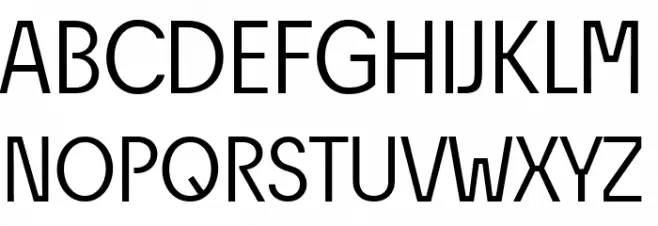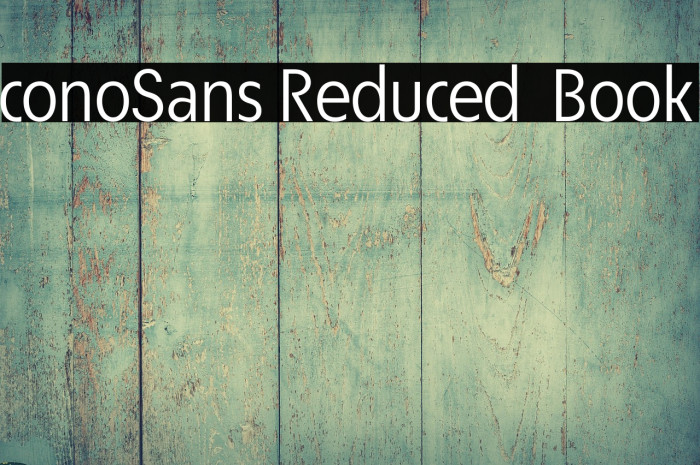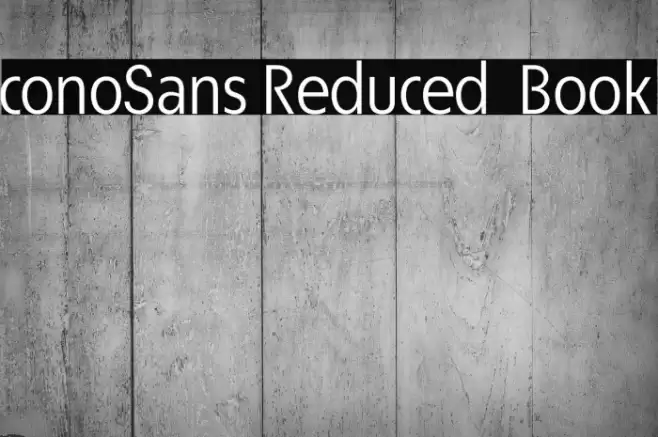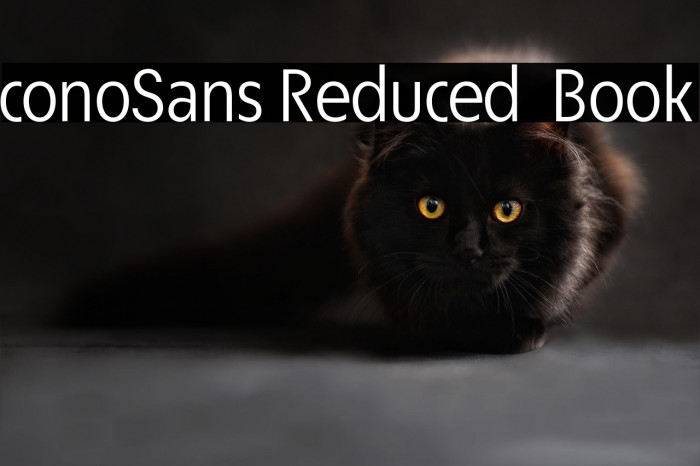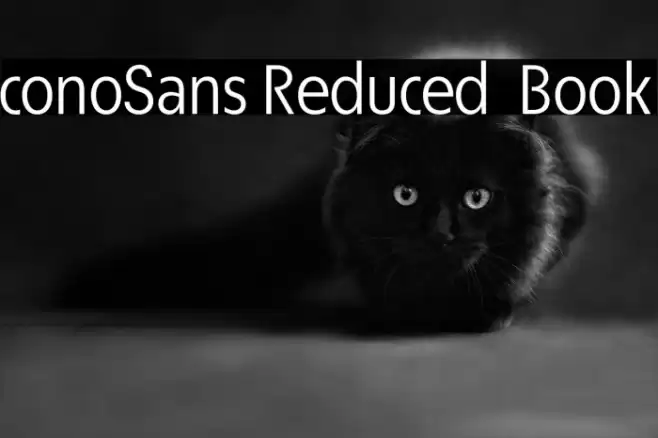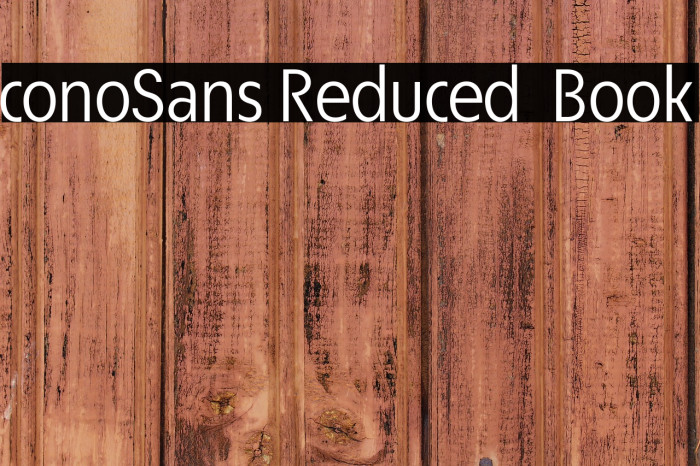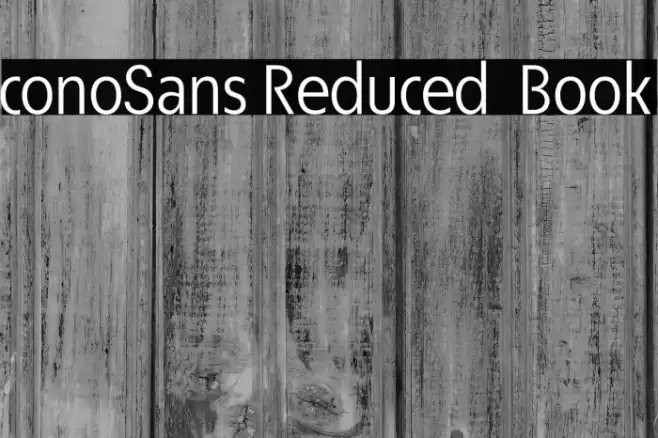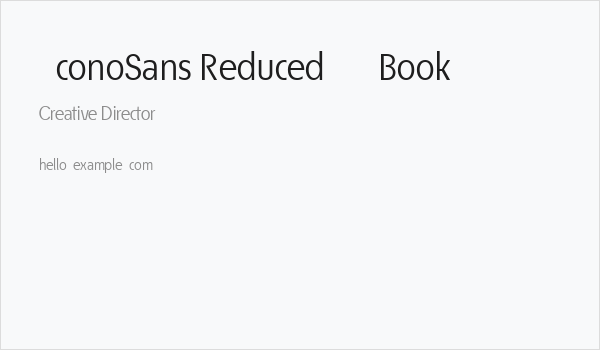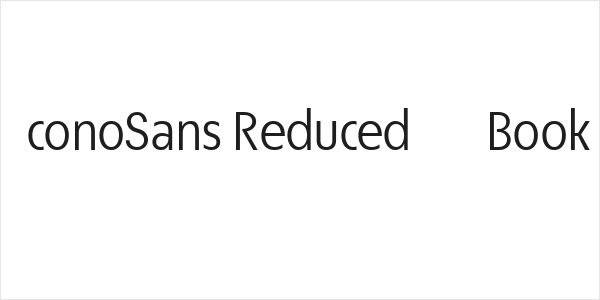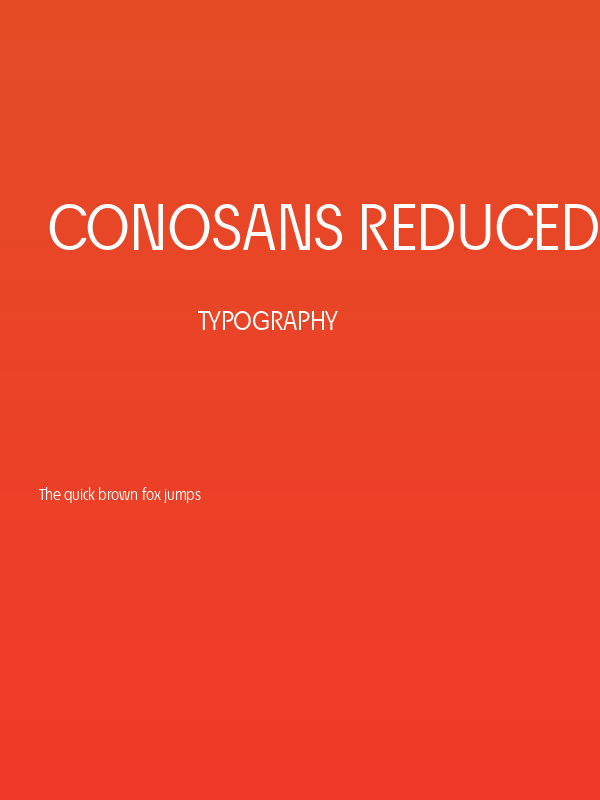
ÉconoSans Reduced 55 Book Font
ÉconoSans Reduced 55 Book Description
This font features a clean and modern sans-serif style with a geometric structure. The characters are well-balanced with consistent stroke widths, providing a uniform appearance. The uppercase letters are bold and assertive, while the lowercase letters maintain a friendly and approachable look. The numerals are clear and easy to read, making them suitable for various applications. Special characters are designed with simplicity, ensuring they blend seamlessly with the rest of the font. Overall, this font exudes a professional and contemporary feel, ideal for both digital and print media.
| Proposed Projects | Ideal for branding, corporate materials, web design, and editorial layouts. |